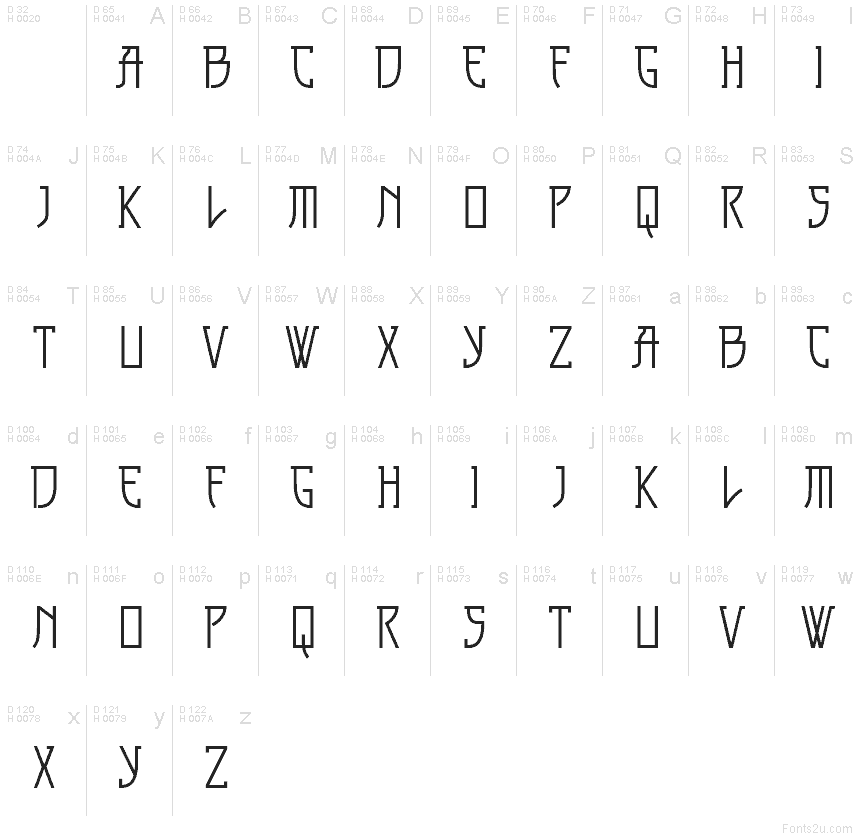
Fragrance Extravagant Regular
Fragrance Extravagant font by Vladimir Nikolic is a remarkable Chinese-style typeface with condensed widths and incredibly artistic design. Unique angles, charming geometric influences, and distinctive ornamentations make up the characteristics of this highly creative work. For a bit of twist to your next design project, all you need is this free condensed font.
Create elegant cards, cover books, posters, packaging labels, product labels, magazine and newspaper big typography messages using this finely crafted magical typeface and its charming beauty. Don’t forget about coffee cups or fashion project titles!